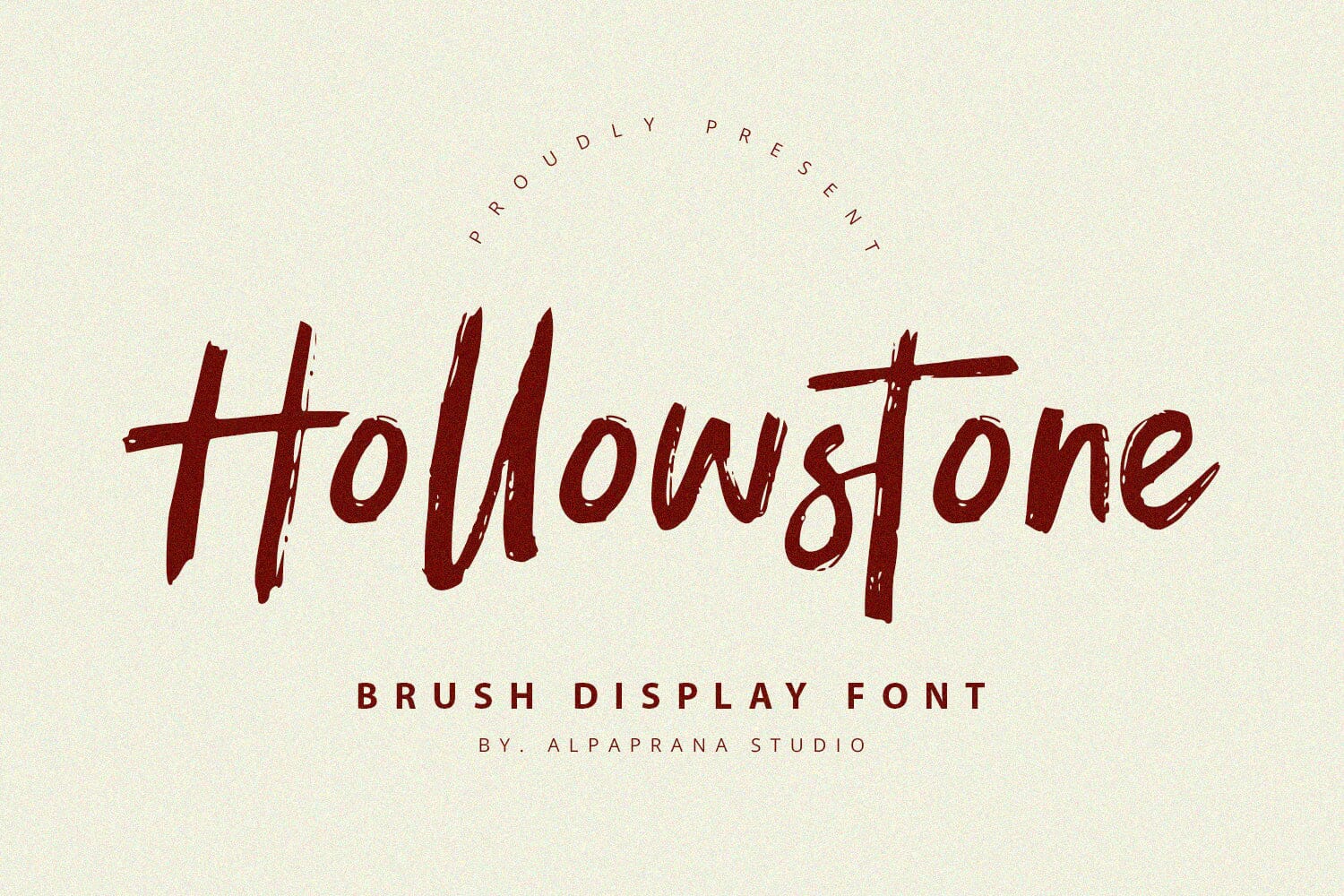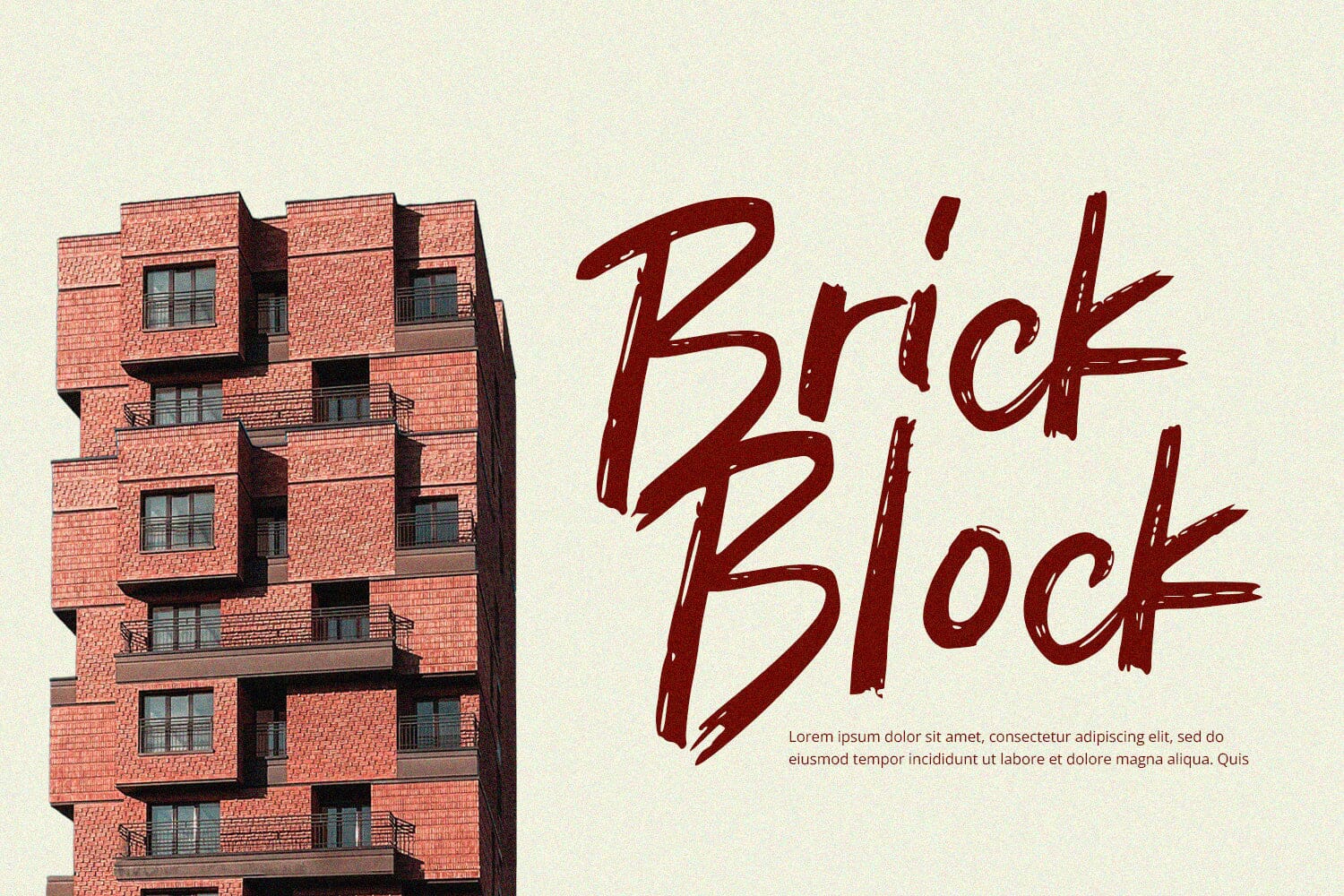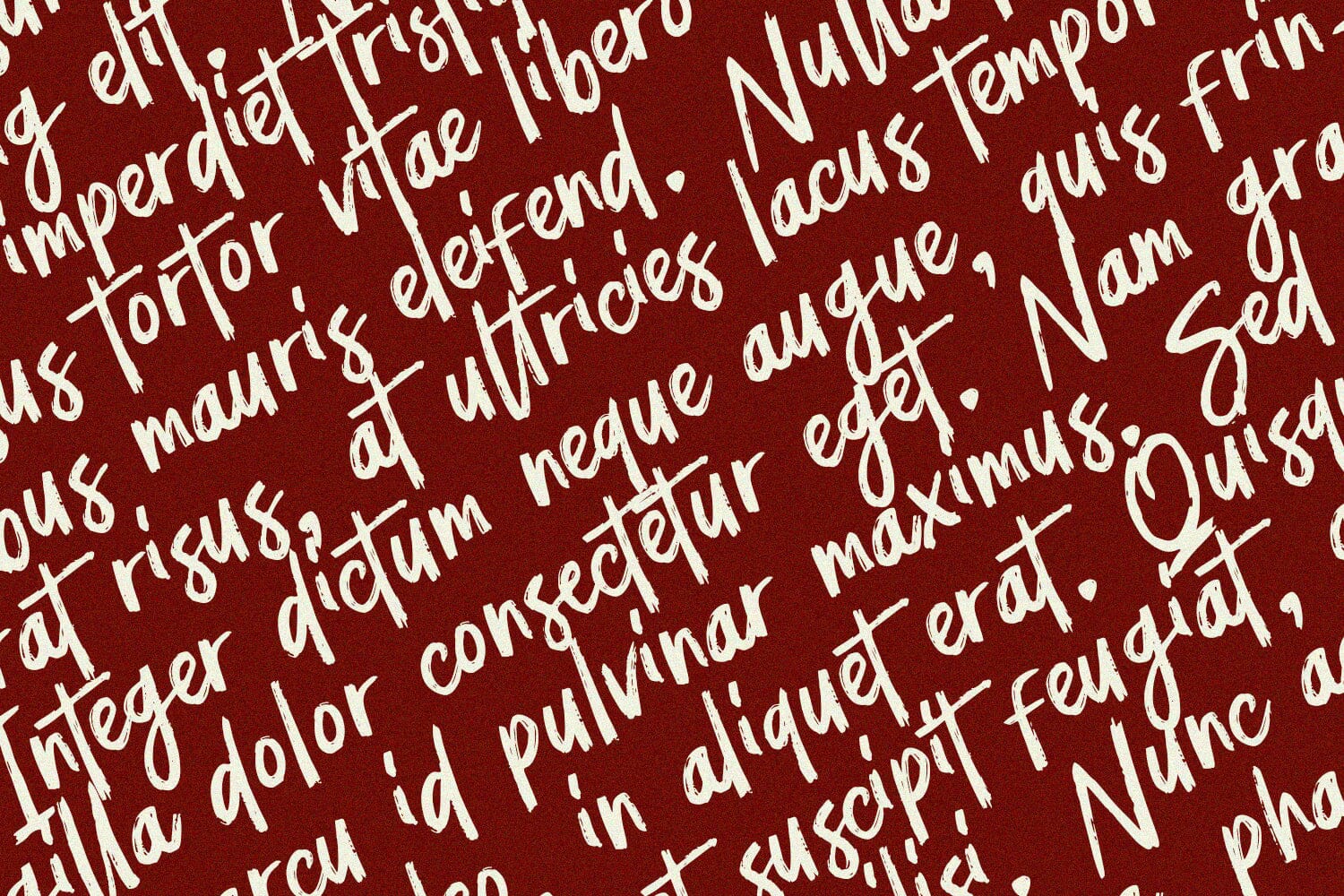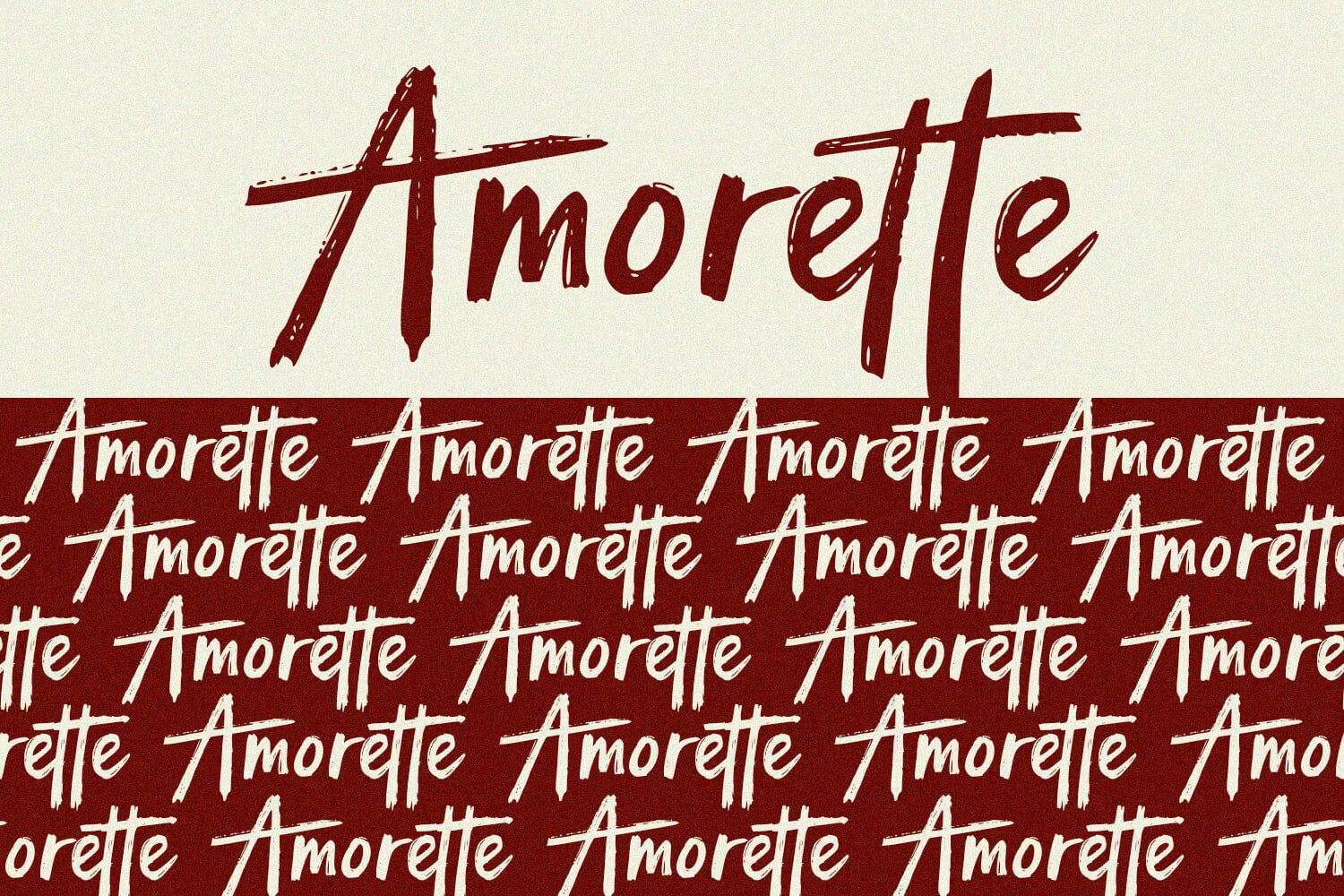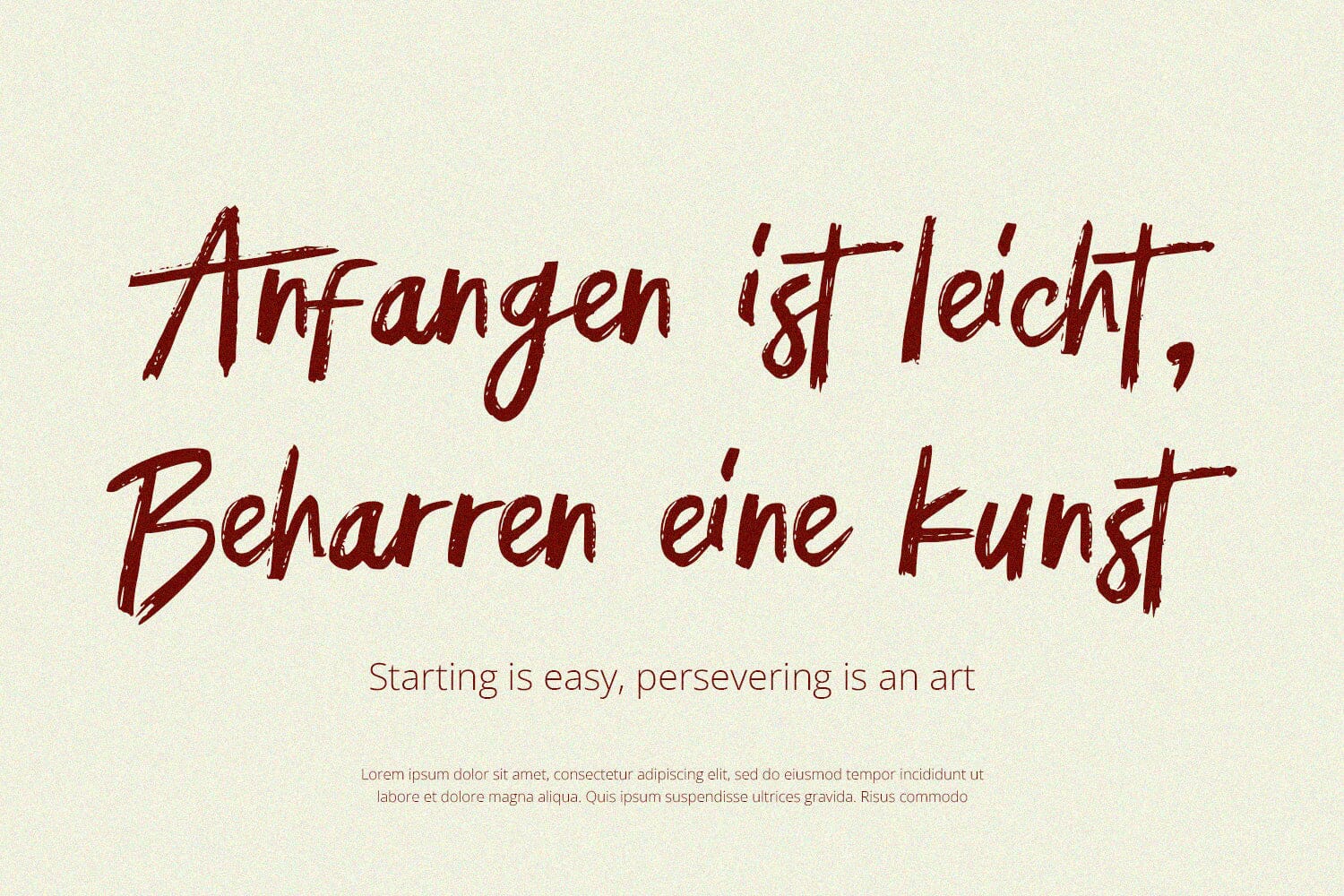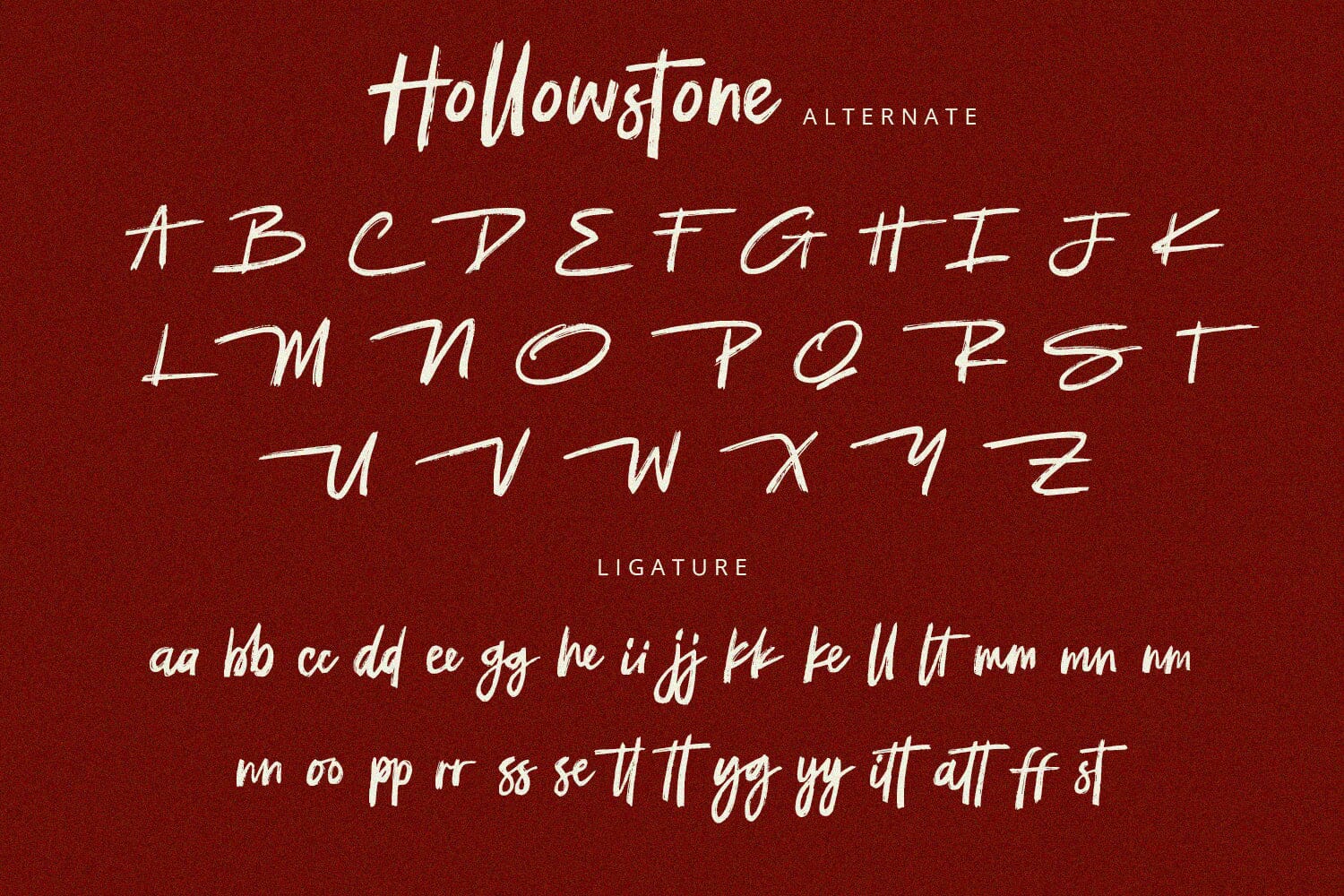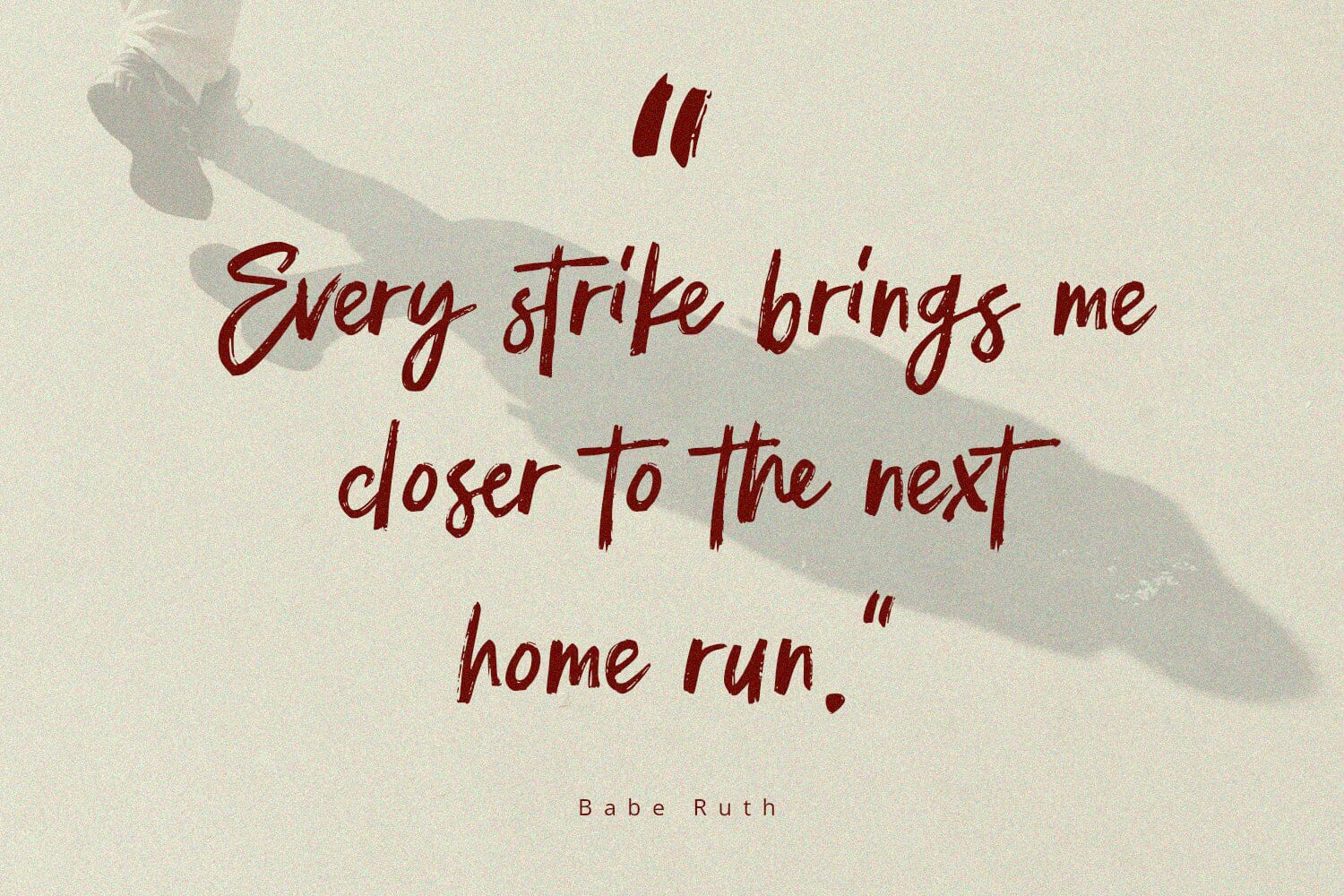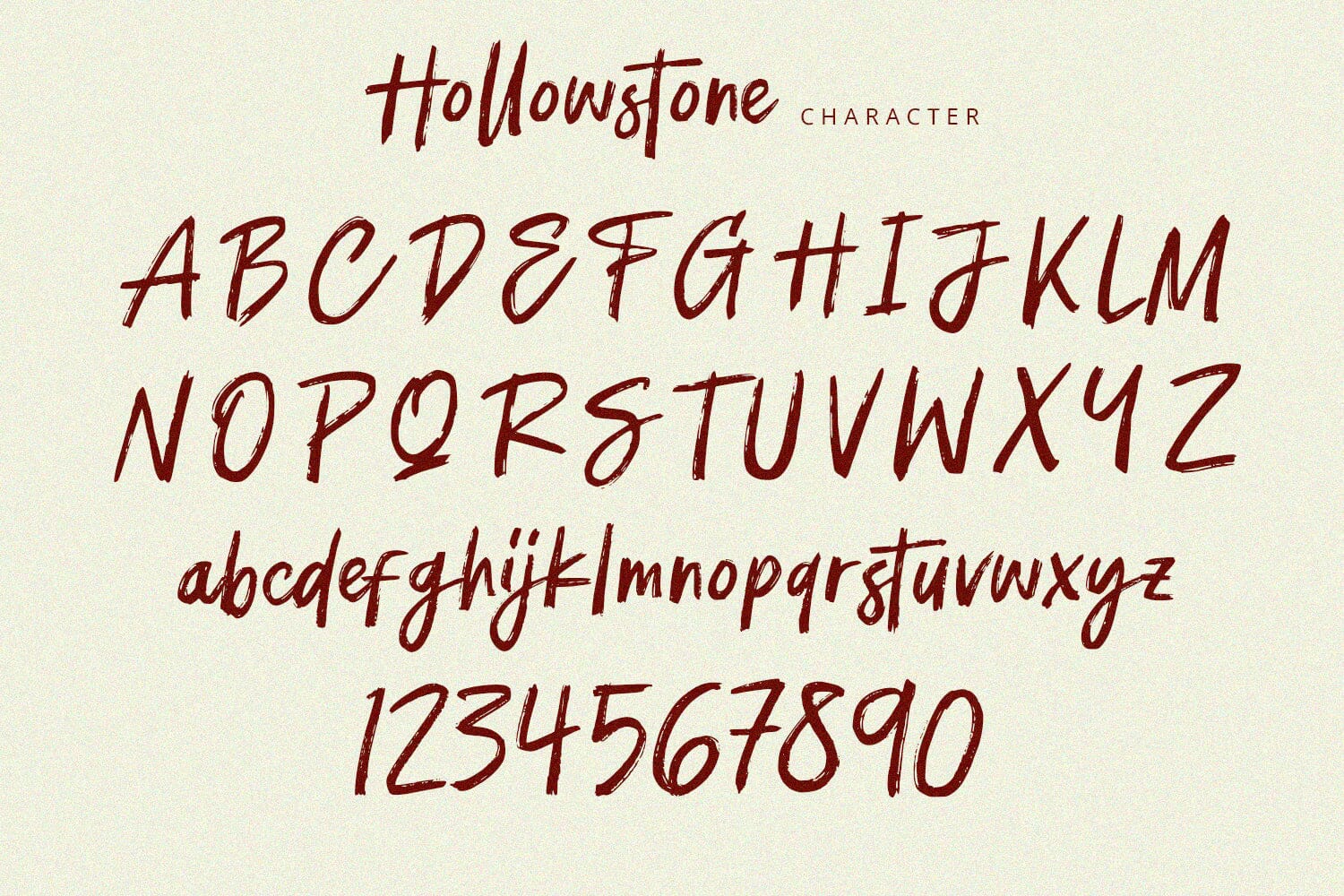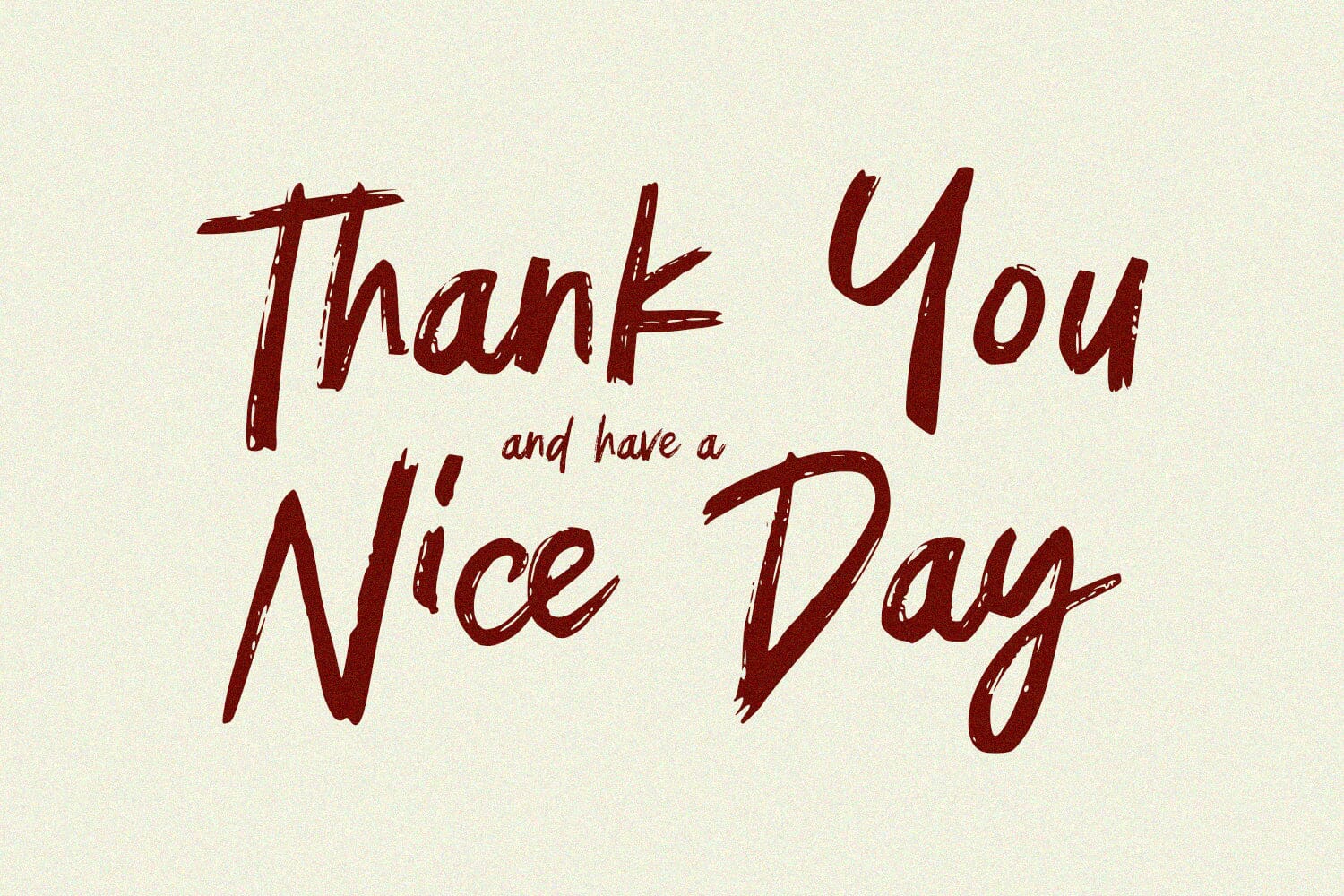
Hollowstone - Brush Font
Hollowstone is a brush script font with unique and natural feels. It will be perfectly used for Branding, Logo Design, Lettering, Logotype, Clothing, Poster, magazine, packaging, posters, shopping bags, t-shirts, book covers, photography, special events and other design project.
Features :
- Uppercase & Lowercase
- Numerals
- Punctuations (OpenType Standard)
- Accents (Multilingual Characters)
- Ligatures and Alternative Style Stylistic Set